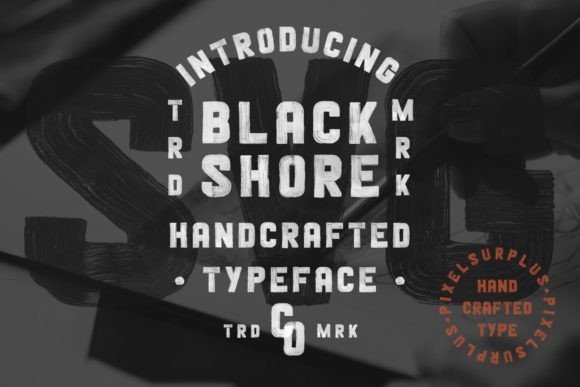
Unleash Your Creativity with Blackshore Font
Remember that moment when you stumbled upon the perfect font for your design project? The one that instantly transported you to a world of possibilities and made your creative juices flow? For designers, finding the right font can be a game-changer, and we’re excited to introduce the Blackshore Font – a hand-painted sans serif font that’s about to become your new go-to.
Blackshore Font is more than just a font; it’s a statement piece that adds a touch of authenticity to any design. Its natural brush strokes and imperfections give it a unique, vintage feel that’s perfect for creating bold and eye-catching designs. Whether you’re working on an event poster, a website, or an apparel brand, Blackshore Font is the perfect choice to elevate your design to the next level.
With Blackshore Font, you’ll have the freedom to experiment with different styles and ideas, knowing that you have a versatile font that can adapt to any creative vision. Get ready to unleash your creativity and take your designs to new heights with the Blackshore Font.
Blackshore Font Key Features
- Unique Characteristics: This font features a unique blend of modern and vintage elements, with a strong emphasis on legibility and readability, making it perfect for body text and long-form content.
- Customization Options: The font includes a range of OpenType features, such as ligatures, swashes, and alternates, allowing for a high degree of customization and creative expression.
Designer Review: Blackshore Font
Overall, I’d say Blackshore Font is a solid addition to any designer’s toolkit. Here are some things that really work well:
- ✨ Elegant, modern aesthetic that’s perfect for contemporary designs
- ✨ Wide range of weights and styles, making it highly customizable
- ✨ Excellent legibility, even at smaller font sizes
- ✨ Supports a wide range of languages, making it a great choice for international designs
That being said, there are a few limitations to consider:
- ⚠️ Limited character set, which may not be suitable for projects that require a lot of special characters
- ⚠️ May not be as suitable for text-heavy designs, as it can be a bit overwhelming with too much text
Overall, I’d give Blackshore Font 4 out of 5 stars. It’s a great choice for designers who want a modern, elegant font for their projects. However, it’s not without its limitations, and designers should be aware of those before making a final decision.
Tips for Getting the Most Out of Blackshore Font
Blackshore Font is a versatile font that can be used in various design projects. Here are some tips to get the most out of it:
- Use it for headings and titles to add a touch of elegance.
- Pair it with other fonts to create a unique and interesting font combination.
Blackshore Font is commonly used in:
- Designing business cards and letterheads.
- Creating marketing materials such as brochures and flyers.
- Designing